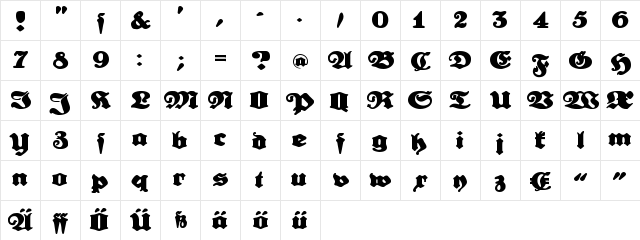
Urdeutsch Regular
Design Context for Urdeutsch Typeface
Urdeutsch is a composed and adaptable typeface that performs quietly and consistently across a wide range of design contexts.